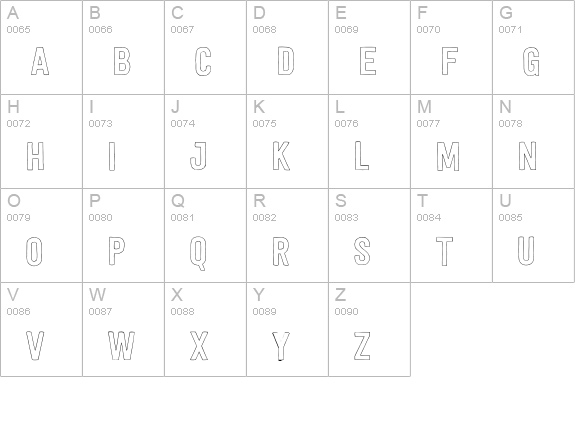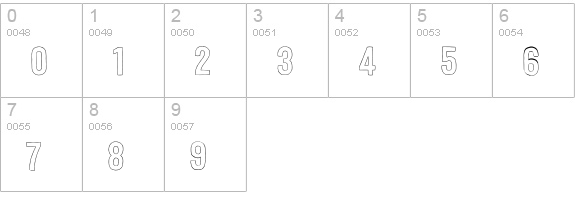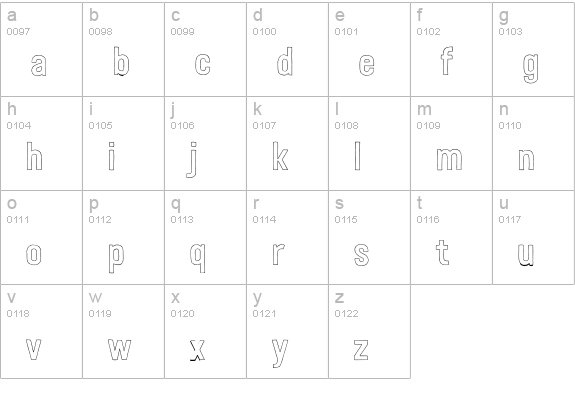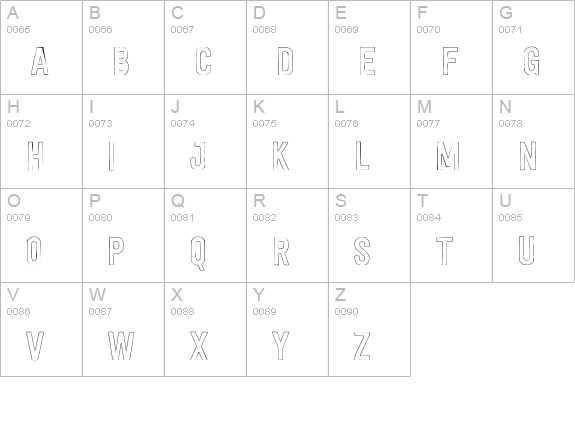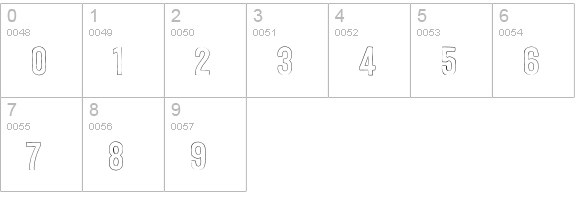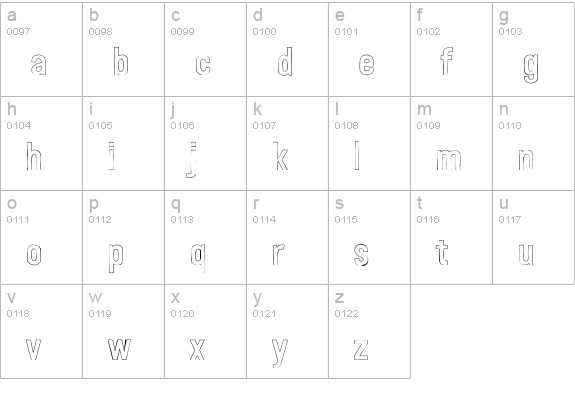
Festivo LC Outline Font Details
Festivo LC Outline font is a modern and stylish typeface that exudes elegance and sophistication. Its clean lines and sleek design make it perfect for a wide range of projects, from branding to editorial design. The outline style adds a unique touch to any text, making it stand out and catch the eye. The best part about Festivo LC Outline font is that it is completely free to download at FontsMarket.com. You can easily access this versatile font and use it in your projects without any cost. Whether you're working on a logo, poster, website, or any other design, Festivo LC Outline font will add a touch of class and professionalism. Don't miss out on this fantastic opportunity to enhance your designs with the exquisite Festivo LC Outline font. Download it for free today and elevate your projects to the next level.